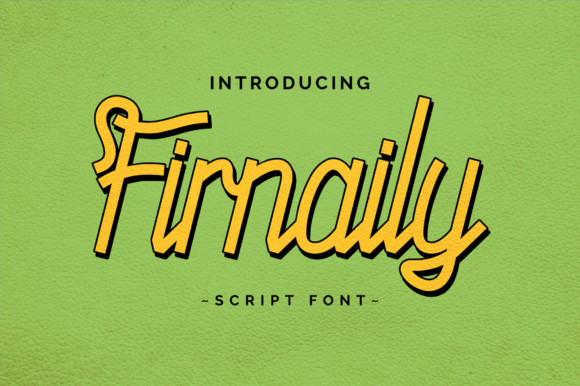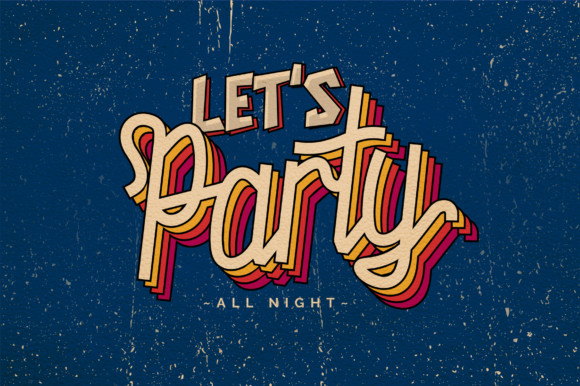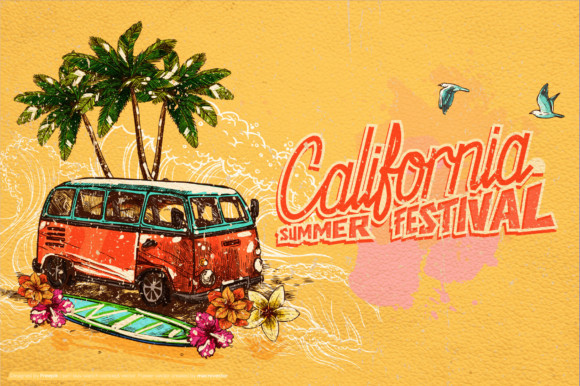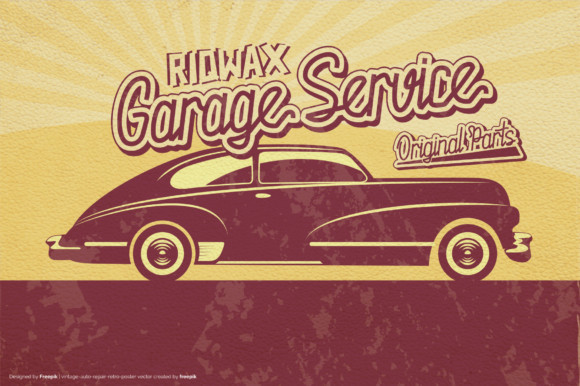
Firnaily Font
Firnaily is a retro-themed display font with lovely swashes. Use it to add that special retro touch to any design idea you can think of!